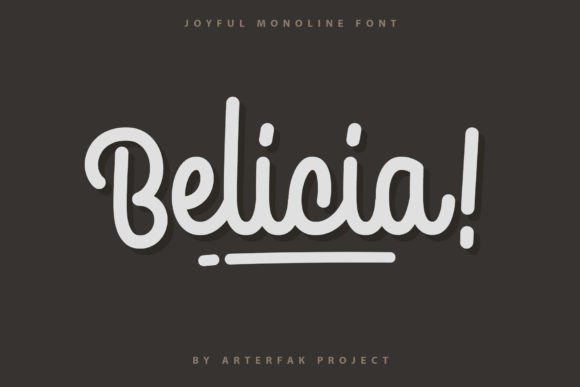
Introducing Belicia! Font: Elevate Your Designs with Elegance and Charm
In the world of typography, a font can make all the difference in the success of a design project. If you’re looking for a script font that exudes cheerfulness, elegant style, and versatility, look no further than Belicia! Font. This stunning monoline font is designed to add a touch of beauty and charm to any design, making it the perfect choice for creative professionals and designers alike.
The Beauty of Belicia! Font
Belicia! Font is a masterclass in elegant simplicity. Its unslanted, monoline design gives it a unique and refreshing look that’s both playful and sophisticated. The font’s versatility is one of its standout features, making it suitable for a wide range of design projects, from food menus and posters to logos, logotypes, branding, and more.
One of the key benefits of Belicia! Font is its ability to convey a sense of cheerfulness and approachability. Its clean lines and simple shapes make it easy to read and understand, while its elegant style ensures that it always looks sophisticated and refined.
Special Characters and Unique Designs
Belicia! Font is packed with special characters, allowing designers to create truly unique and captivating designs. The font’s extensive character set includes a range of alternates, ligatures, and other special characters that can be used to add an extra touch of personality to any design.
With Belicia! Font, you can create designs that stand out from the crowd and leave a lasting impression on your audience. Whether you’re designing a logo, a poster, or a social media graphic, this font provides the perfect combination of style and flexibility.
Multilingual Support
In today’s globalized world, it’s more important than ever to have a font that can support multiple languages. Belicia! Font provides multilingual support, ensuring that it can be used in a wide range of design projects, regardless of the language or region.
This feature makes Belicia! Font an excellent choice for designers who work with international clients or need to create designs for global audiences. With this font, you can create designs that are both beautiful and functional, no matter where your audience is located.
Endless Design Possibilities
Belicia! Font is an incredibly versatile font that can be used in a wide range of design projects. Some of the many design possibilities include:
- Food menus and restaurant branding
- Posters and flyers
- Logos and logotypes
- Branding and packaging
- Headlines and quotes
- Weddings and event design
- Labels and signage
- Signboards and more
Whether you’re a professional designer or just starting out, Belicia! Font provides the perfect combination of style, flexibility, and functionality to bring your design projects to life.
Why Choose Belicia! Font?
So why choose Belicia! Font for your design projects? Here are just a few reasons:
- Elegant style: Belicia! Font exudes elegance and sophistication, making it perfect for high-end designs.
- Versatility: This font can be used in a wide range of design projects, from posters to logos and more.
- Special characters: Belicia! Font includes a range of special characters, allowing you to create unique and captivating designs.
- Multilingual support: This font supports multiple languages, making it perfect for global design projects.
- Easy to read: Belicia! Font is clean and easy to read, making it perfect for body text and headlines.
In conclusion, Belicia! Font is a stunning monoline script font that offers the perfect combination of elegance, versatility, and functionality. With its special characters, multilingual support, and endless design possibilities, this font is perfect for designers who want to elevate their designs and create something truly special.